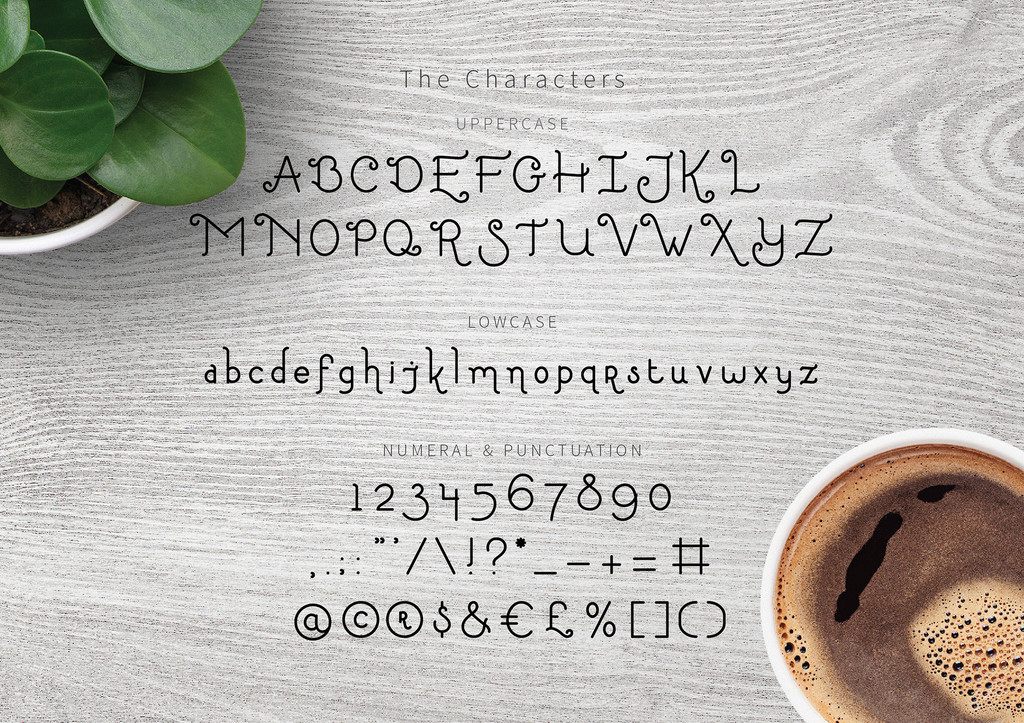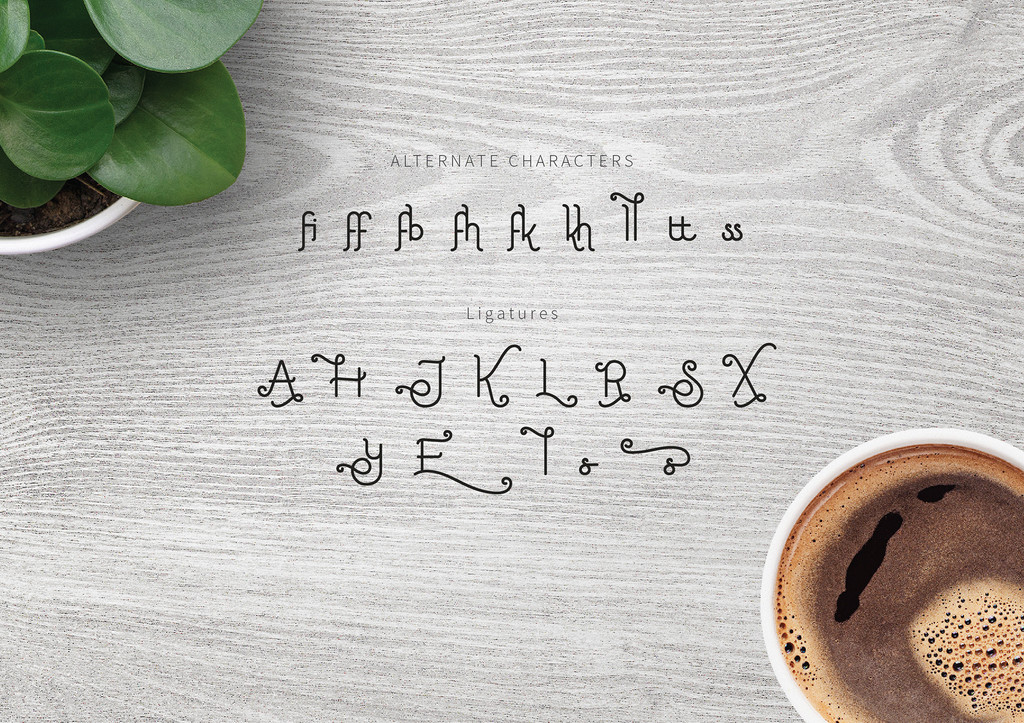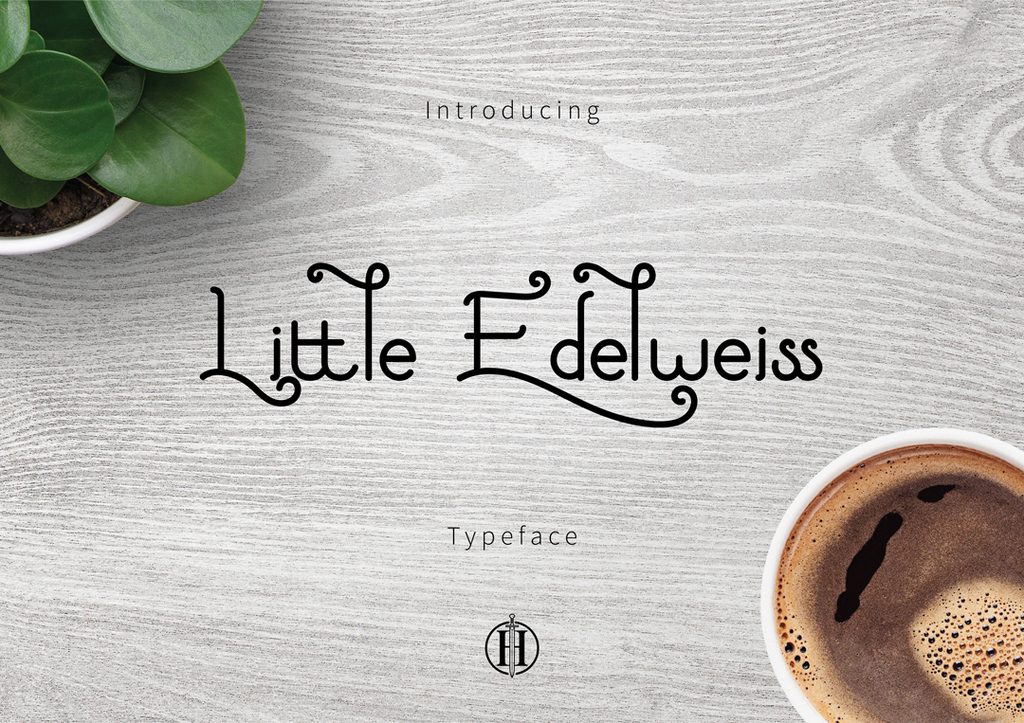
Little Edellweiss Typeface
Little Edellweiss Font
inspired by edelweiss flower, this font can be representation of feminine, graceful and beautiful characters. Great for title, label, company, vintage or classic designs.
Features: Uppercase, Lowercase, Alternate Characters, Ligatures, Numeric, Symbol and Punctuation.